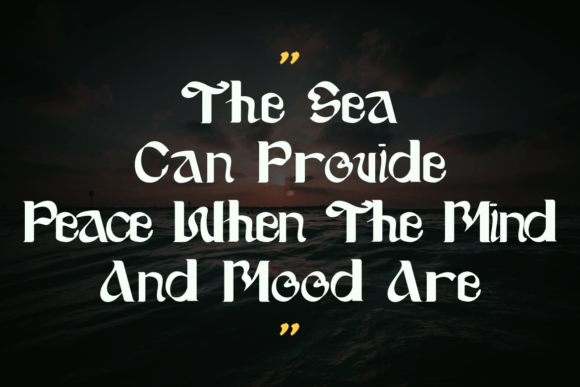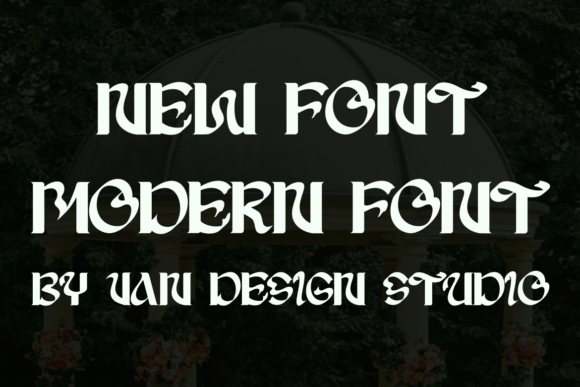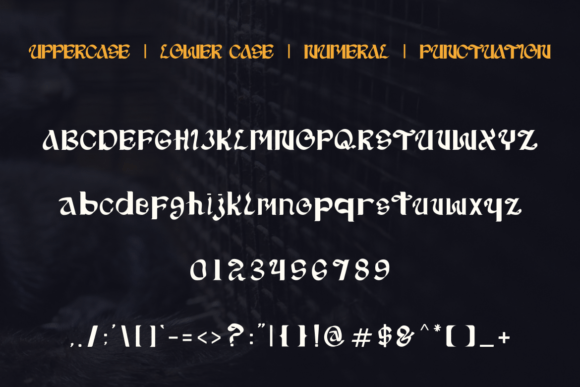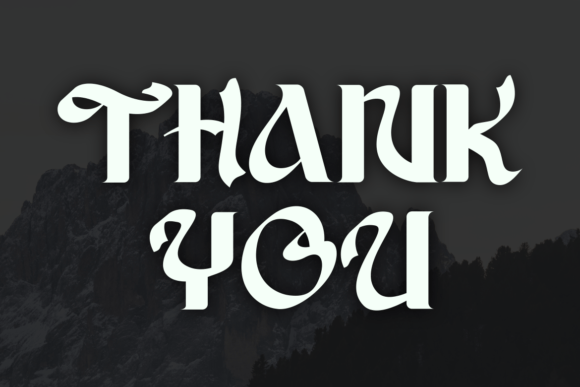
Discover the Unique Style of And Tafusy Font: Elevate Your Designs
In the world of design, fonts play a crucial role in conveying messages, expressing creativity, and capturing the audience’s attention. Among the numerous fonts available, And Tafusy Font stands out for its distinctive style and versatility. This article will delve into the features and benefits of And Tafusy Font, exploring how it can enhance your designs and make them more impactful.
What Makes And Tafusy Font Unique?
And Tafusy Font is not just another font; it’s a design statement. Its unique style is crafted to make your designs stand out, whether you’re working on a logo, a poster, a movie title, or any other visual project. The font’s design is carefully considered to ensure it can be used across various platforms and applications, from digital screens to print materials.
One of the key advantages of And Tafusy Font is its versatility. It’s suitable for a wide range of design projects, including:
- Awsome Display: Use And Tafusy Font to create eye-catching displays that grab attention instantly.
- Labeling: Perfect for product labels, And Tafusy Font offers a unique way to brand your products.
- Clothing: Design custom apparel with a font that stands out on t-shirts, hoodies, and more.
- Movie Screen: Create engaging movie titles and credits that add to the cinematic experience.
- Poster: Whether it’s for an event, a product launch, or an art exhibition, And Tafusy Font can make your poster designs pop.
- Movie Title: Give your movie or video project a professional look with a unique font.
- Gigs: Promote your music gigs or events with stylish and readable typography.
- Album Covers: Stand out in the music industry with album covers that feature And Tafusy Font.
- Logos: Create memorable logos that reflect your brand’s personality.
Why Choose And Tafusy Font?
Choosing And Tafusy Font for your design projects comes with several benefits:
- Uniqueness: Stand out from the crowd with a font that is not commonly used.
- Readability: Despite its uniqueness, And Tafusy Font maintains a high level of readability.
- Flexibility: Use it across various design projects and mediums.
- Creativity: Unleash your creativity with a font that supports imaginative and bold designs.
How to Use And Tafusy Font Effectively
To make the most out of And Tafusy Font, consider the following tips:
- Pair it Wisely: When using And Tafusy Font alongside other fonts, ensure they complement each other.
- Consider Size and Color: Adjust the size and color of the font according to the design and intended use.
- Experiment with Styles: If And Tafusy Font comes in multiple styles, experiment with them to find the best fit for your design.
| Font Name | And Tafusy Font |
| Author | vandesignstd |
And Tafusy Font is more than just a typeface; it’s a design tool that can elevate your projects and make them more engaging. Its uniqueness, versatility, and readability make it an excellent choice for designers and crafters looking to add a distinctive touch to their work. Whether you’re creating a logo, a poster, or any other design material, And Tafusy Font can help you convey your message more effectively and make your designs stand out.
So, why settle for ordinary when you can create something extraordinary with And Tafusy Font? Explore its potential, experiment with different designs, and discover how this unique font can transform your creative projects.